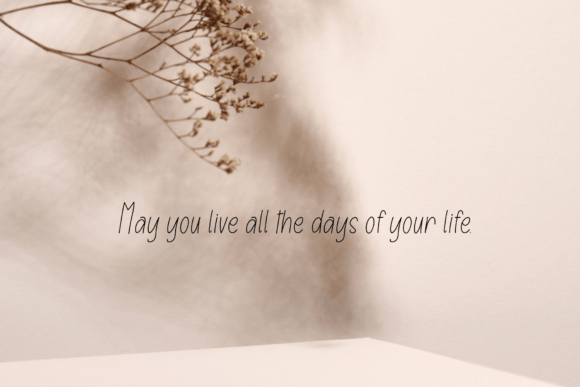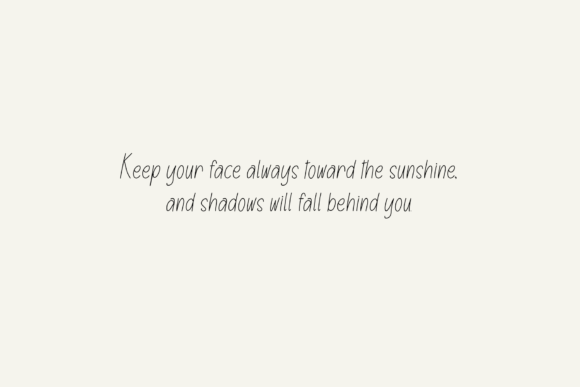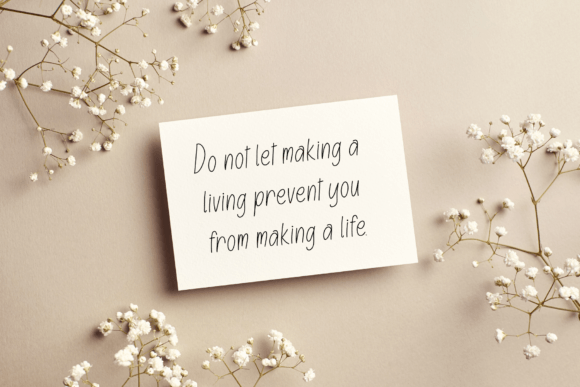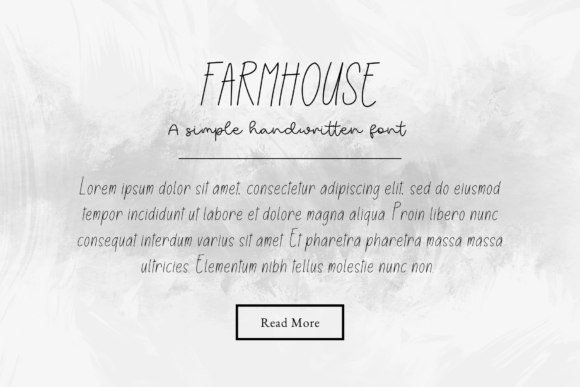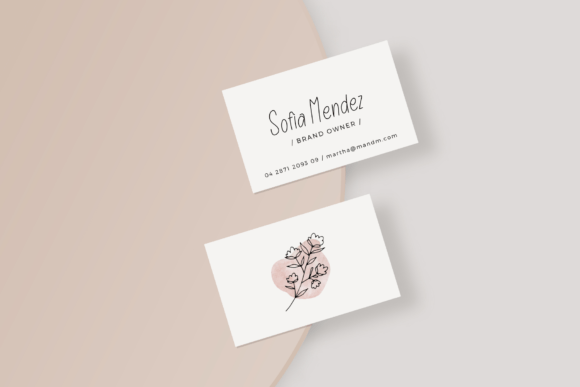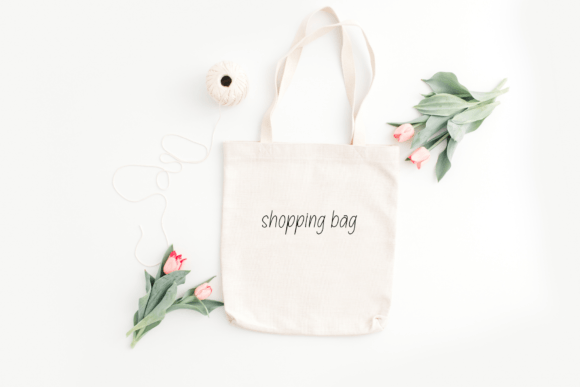
Introducing Farmhouse Font: The Perfect Handwritten Style for Your Creative Projects
Are you a designer, crafter, or DIY enthusiast looking for a unique and versatile font to add a personal touch to your digital and print projects? Look no further than Farmhouse Font, a beautiful handwritten font that’s perfect for creating a wide range of creative content. From digital notes and planners to logos, web design, notebooks, journals, labels, blogs, quotes, greeting cards, and more, Farmhouse Font is the ideal choice for anyone seeking a warm and inviting handwritten look.
Farmhouse Font is a carefully crafted handwritten font that’s designed to bring a touch of warmth and personality to your projects. Its unique, flowing script is reminiscent of handwritten notes and letters, making it perfect for creating a sense of connection and intimacy with your audience. Whether you’re designing for digital or print, Farmhouse Font is sure to add a special touch to your work.
Uses for Farmhouse Font
One of the best things about Farmhouse Font is its incredible versatility. Here are just a few ideas for how you can use this amazing font in your creative projects:
- Digital Notes and Planners: Add a personal touch to your digital notes and planners with Farmhouse Font. Perfect for bullet journaling, daily planning, or simply jotting down notes.
- Logos and Branding: Use Farmhouse Font to create a unique and memorable logo for your business or brand. Its handwritten style is sure to stand out and leave a lasting impression.
- Web Design: Add a touch of warmth and personality to your website with Farmhouse Font. Perfect for headings, titles, and other design elements.
- Notebooks and Journals: Create beautiful and unique notebooks and journals with Farmhouse Font. Perfect for personal use or as a gift.
- Labels and Tags: Use Farmhouse Font to create custom labels and tags for your craft projects, gifts, or storage solutions.
- Blogs and Quotes: Add a touch of elegance and sophistication to your blog posts and quotes with Farmhouse Font.
- Greeting Cards and Invitations: Create beautiful and heartfelt greeting cards and invitations with Farmhouse Font. Perfect for special occasions and celebrations.
- Apparel and Accessories: Use Farmhouse Font to create custom apparel, pillows, mugs, and other accessories with a personal touch.
Why Choose Farmhouse Font?
So why choose Farmhouse Font over other fonts? Here are just a few reasons why designers and crafters love this amazing font:
- Unique and Handwritten Style: Farmhouse Font features a unique and handwritten style that’s sure to stand out in any project.
- Versatile and Flexible: Use Farmhouse Font for a wide range of creative projects, from digital notes to logos and branding.
- Easy to Read and Write: Farmhouse Font is carefully crafted to be easy to read and write, making it perfect for everyday use.
- High-Quality Design: Farmhouse Font is designed with high-quality and attention to detail, ensuring that it looks great in any project.
| Author | Cotton White Studio |
Farmhouse Font is a beautiful and versatile handwritten font that’s perfect for designers, crafters, and DIY enthusiasts. With its unique and flowing script, it’s sure to add a touch of warmth and personality to any project. Whether you’re creating digital notes, logos, web design, notebooks, journals, labels, blogs, quotes, greeting cards, or more, Farmhouse Font is the ideal choice. So why wait? Try Farmhouse Font today and see the difference it can make in your creative projects! 😍